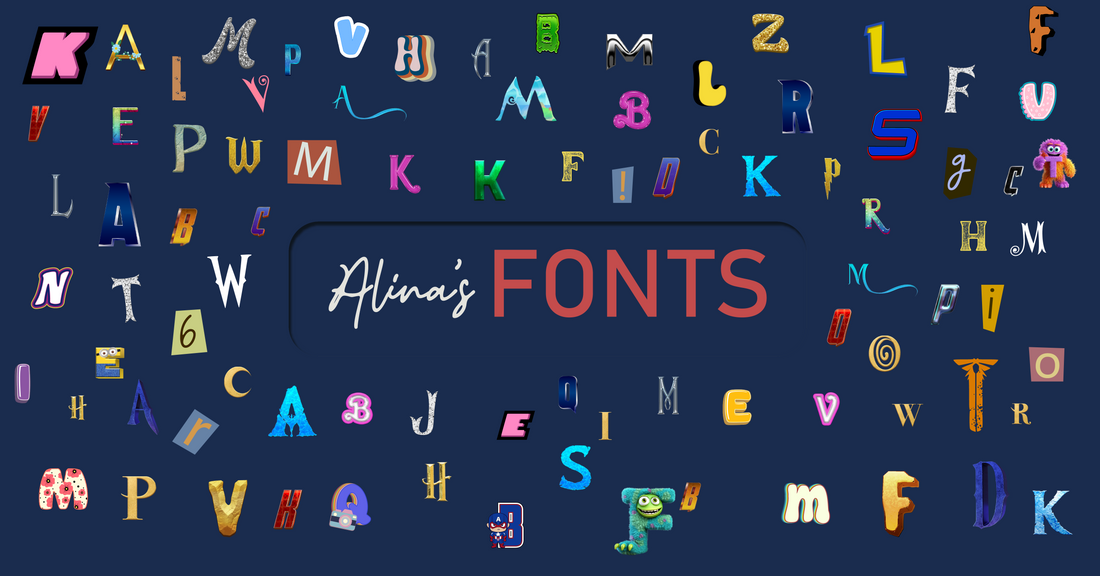
Textured and Colored Fonts: How Popular Culture Influenced Modern Typography
Textured and colored fonts have become increasingly popular in recent years, thanks to their ability to add a unique and eye-catching element to any design. Inspired by various popular culture phenomena, these fonts offer a creative way to express ideas and evoke emotions. In this blog post, we will explore the world of textured and colored fonts, their origins, and how they have become a staple in modern design.
What are Textured and Colored Fonts?
Textured and colored fonts are a type of typography that goes beyond the traditional black and white. They incorporate various textures, patterns, and colors to create visually appealing and engaging letterforms. These fonts can range from subtle textures and gradients to bold and vibrant colors, depending on the desired effect.
Origins and Inspiration
The use of textured and colored fonts can be traced back to the early days of graphic design, where designers experimented with different techniques to make their typography stand out. However, it was the rise of popular culture phenomena, such as street art, graffiti, and retro aesthetics, that truly popularized these unique fonts.
Street art and graffiti, with their bold colors and expressive styles, heavily influenced the development of textured and colored fonts. Artists began incorporating the same energy and vibrancy into their typography, creating fonts that captured the essence of urban art.
Furthermore, retro aesthetics, inspired by past decades like the 80s and 90s, brought back the use of vibrant colors and bold patterns. This resurgence in retro design also influenced the creation of textured and colored fonts, as designers sought to recreate the nostalgic feel of those eras.
The Impact on Design
Textured and colored fonts have had a significant impact on the design industry. They offer a way to break free from the constraints of traditional typography and add a sense of personality and uniqueness to any project. Whether it's a poster, website, or logo, these fonts can instantly grab attention and create a memorable visual experience.
Moreover, textured and colored fonts have become a popular choice for brands and businesses looking to stand out in a crowded market. By using these fonts, companies can convey their brand's identity and values in a visually striking way, leaving a lasting impression on their audience.
Where to Find Textured and Colored Fonts